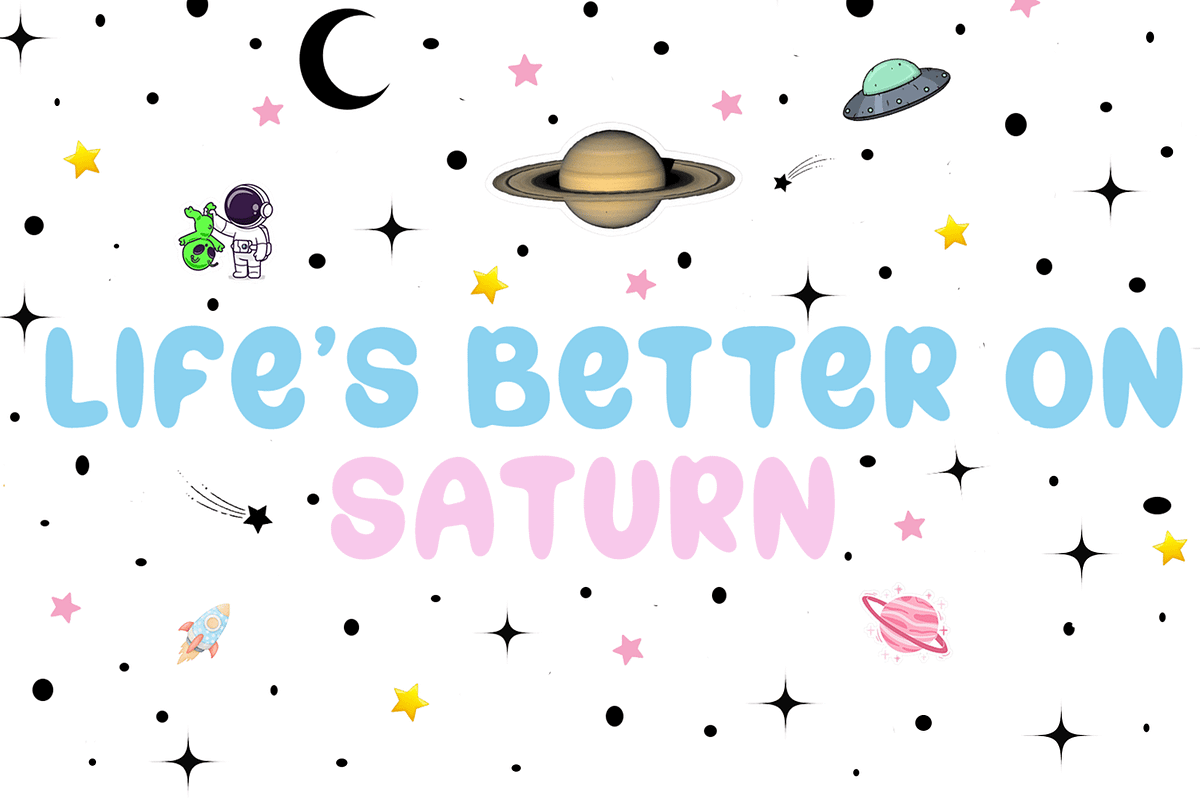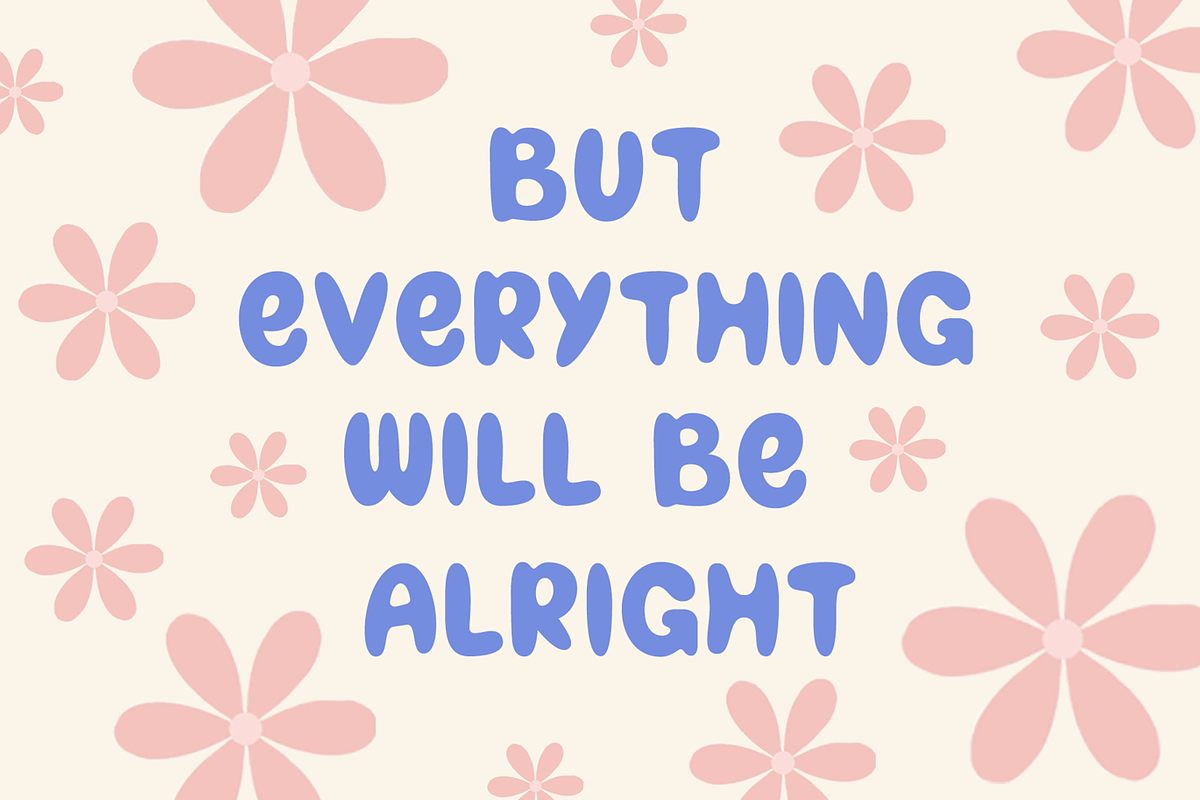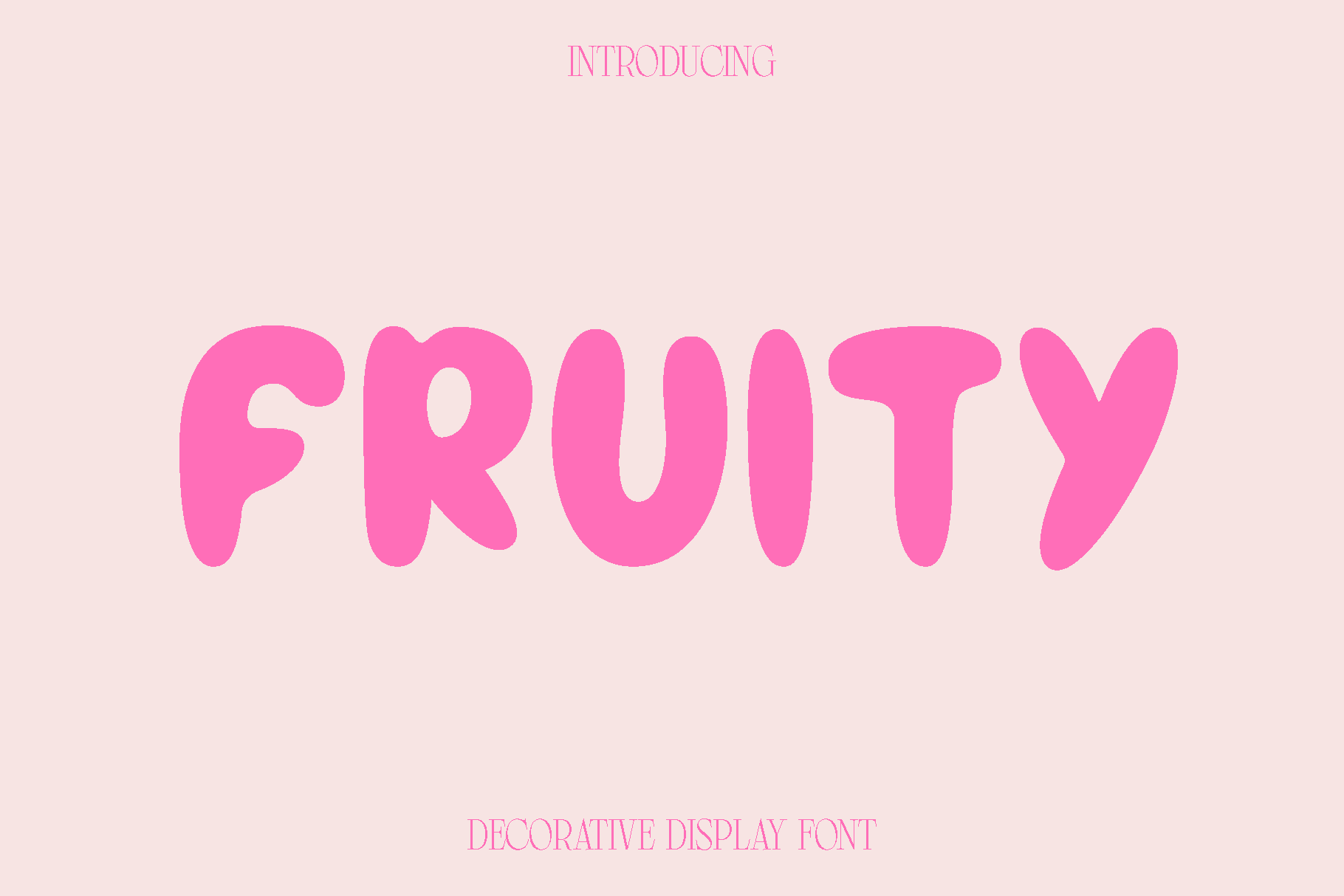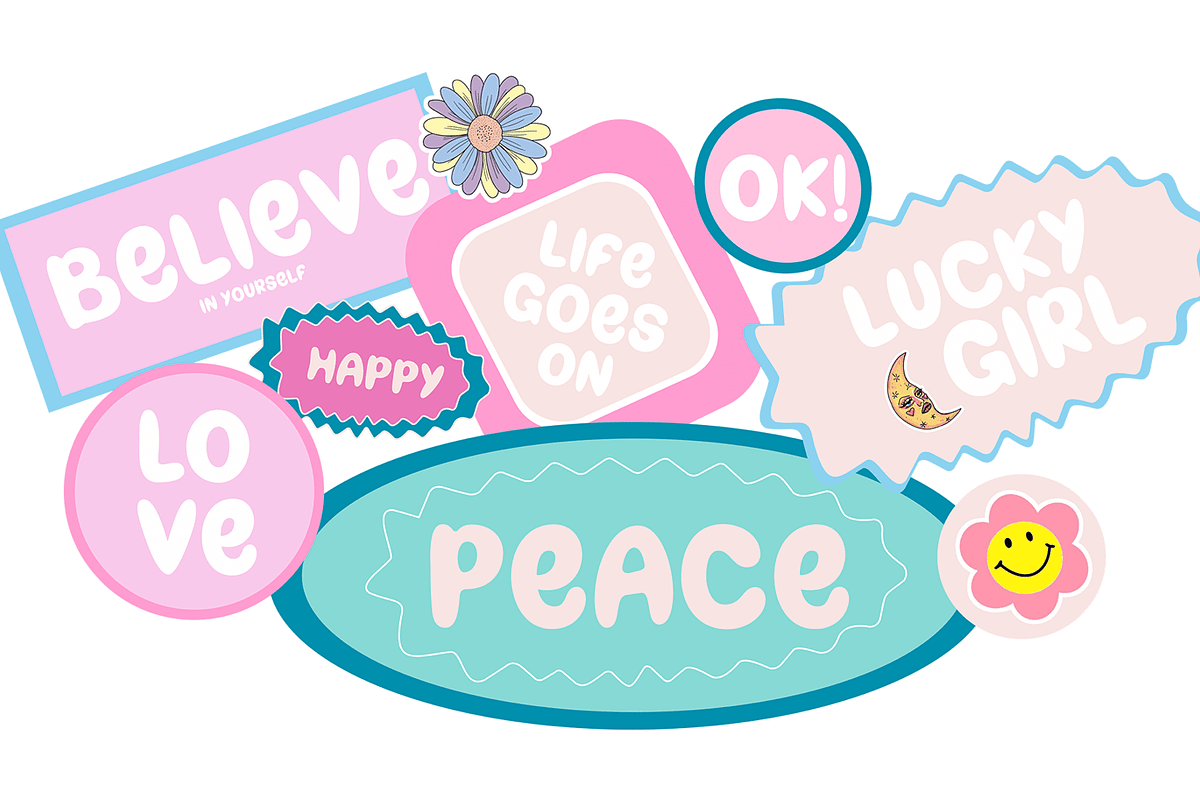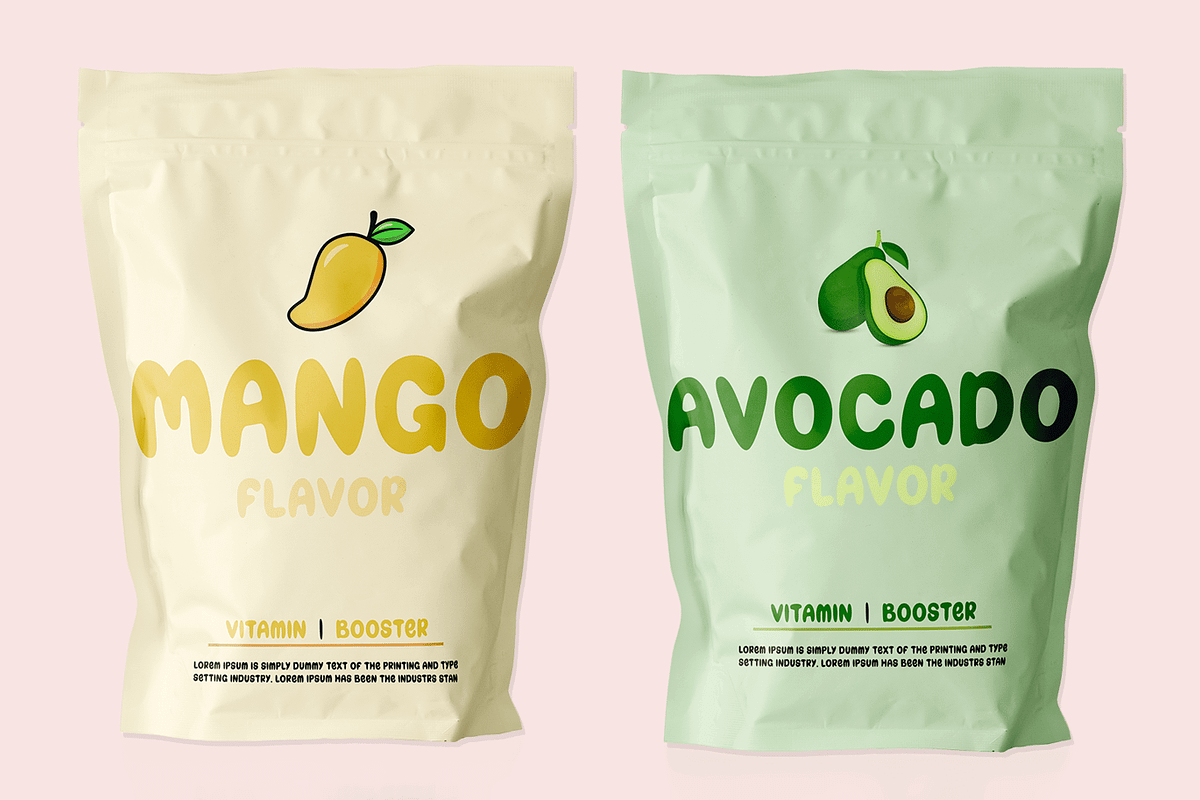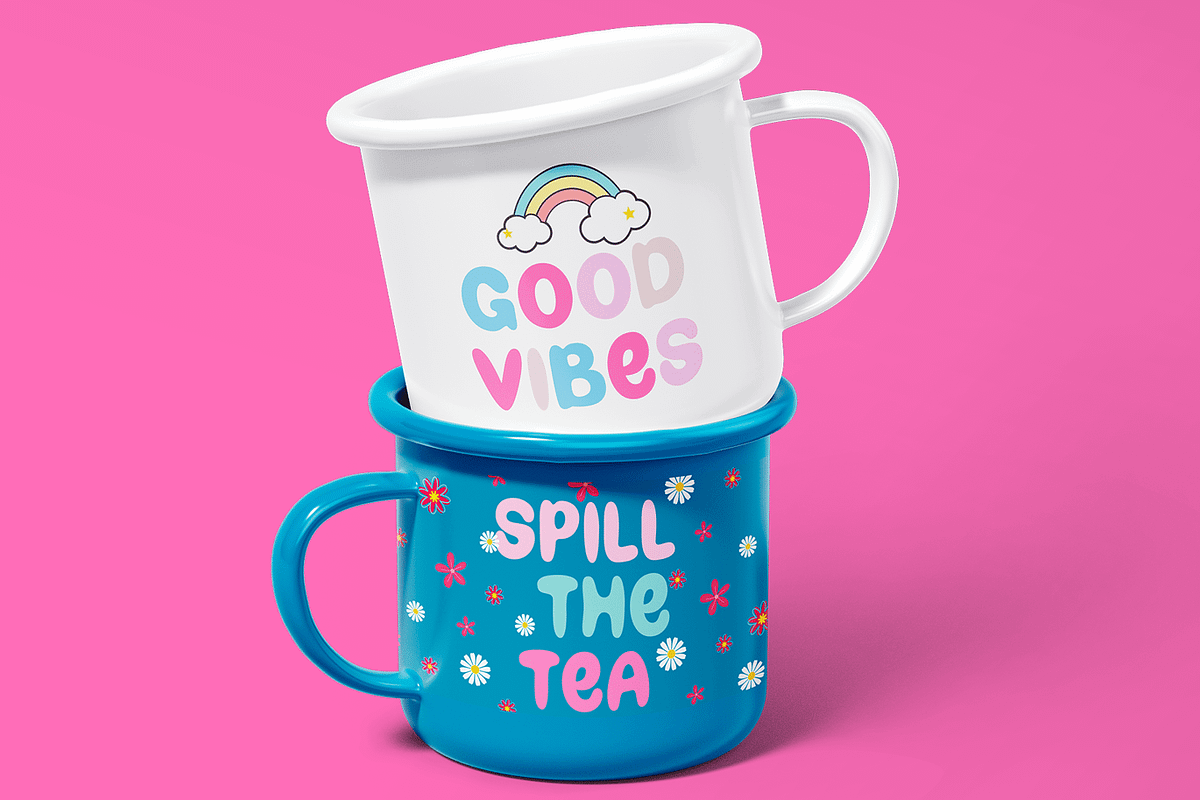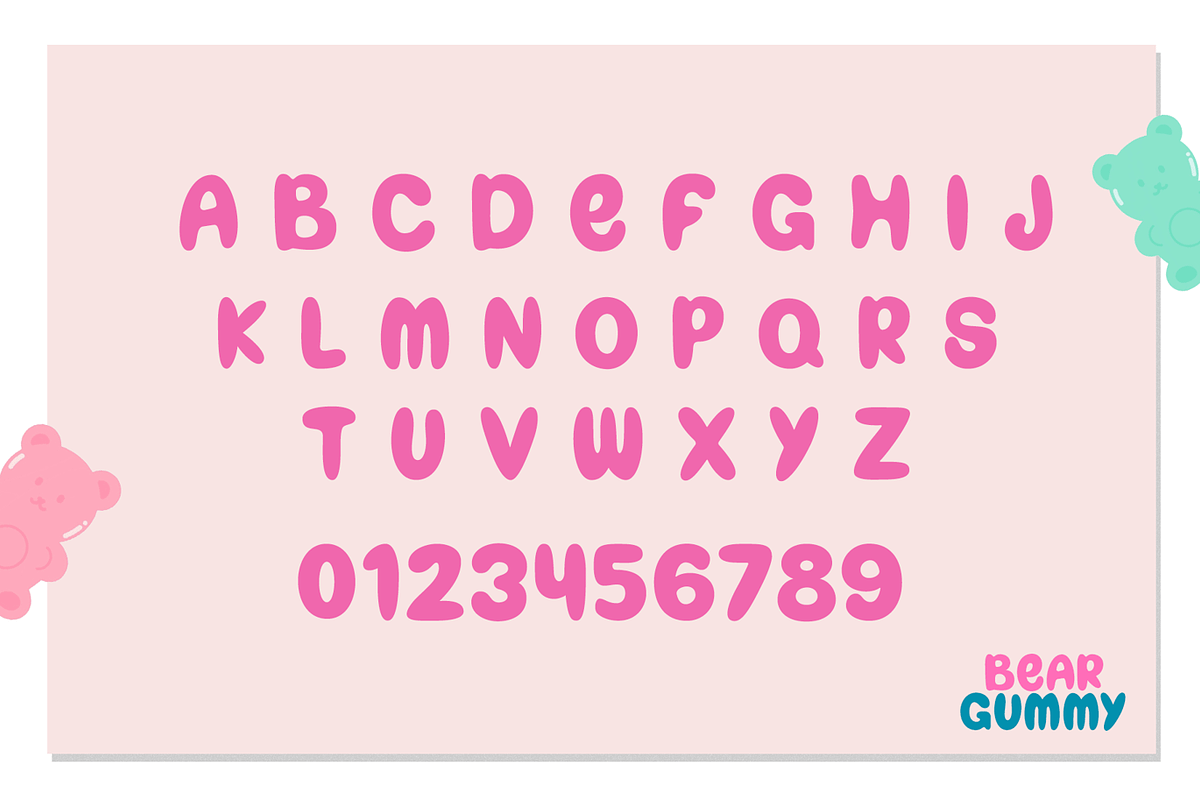
Fruity - Decorative Display Font
Fruity is a lively and expressive font designed to bring warmth, personality, and charm into your creative work. Inspired by cheerful visuals and modern playful typography, Fruity delivers a friendly and approachable tone that instantly makes designs feel fresh and engaging. Its smooth curves and balanced shapes create a natural flow, giving every word a sense of energy and positivity.
This font shines in projects that aim to communicate creativity and fun. Fruity is perfect for book covers, magazines, branding, logos, photography overlays, quotes, blog headers, posters, packaging, and advertising materials. Whether you are designing for digital platforms or print, Fruity adds a vibrant touch that captures attention while keeping your message clear and inviting.
Fruity feels modern, joyful, and versatile. It works beautifully for both bold headlines and supporting text, making it a flexible choice for a wide range of design styles. From lifestyle brands to creative campaigns, Fruity helps bring ideas to life with a distinctive and memorable visual voice.
Fruity Font Features:
• Uppercase and lowercase characters
• Numerals and functional symbols
• Multilingual support
• Clean and readable letterforms